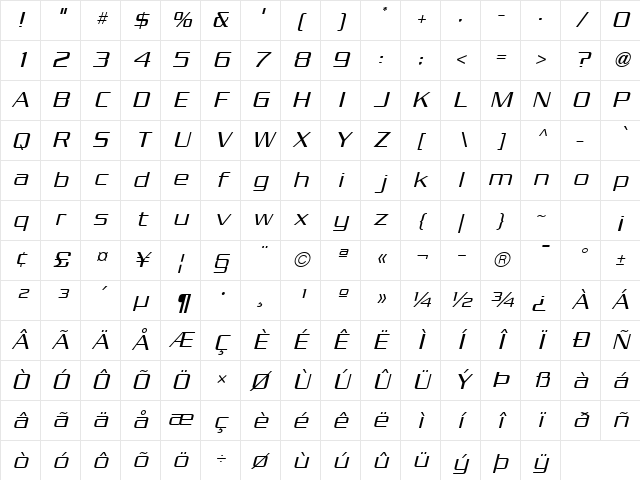
Serpentine Sans ICG Light Oblique
Complete Serpentine Sans ICG Light Oblique glyph index. Displaying only characters natively supported by Serpentine Sans ICG Light Oblique font.
Design Context for Serpentine Sans ICG Light
Serpentine Sans ICG Light is a composed and adaptable typeface that performs quietly and consistently across a wide range of design contexts. The slanted form adds forward momentum and visual energy. Its slender proportions lend an understated elegance to any composition.
Pro Tip: Use Serpentine Sans ICG Light for emphasis, pull quotes, and subheadings where its slanted energy can add rhythm to the layout.